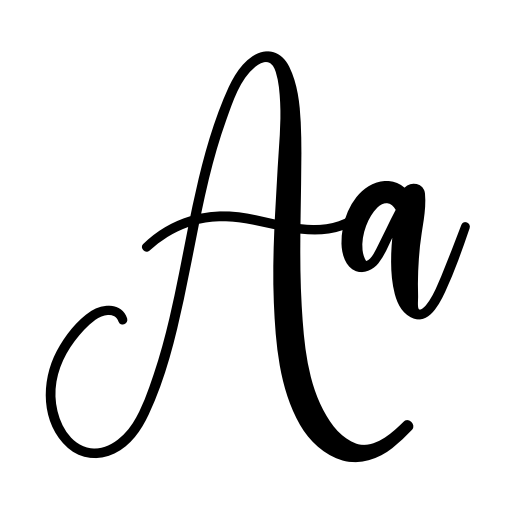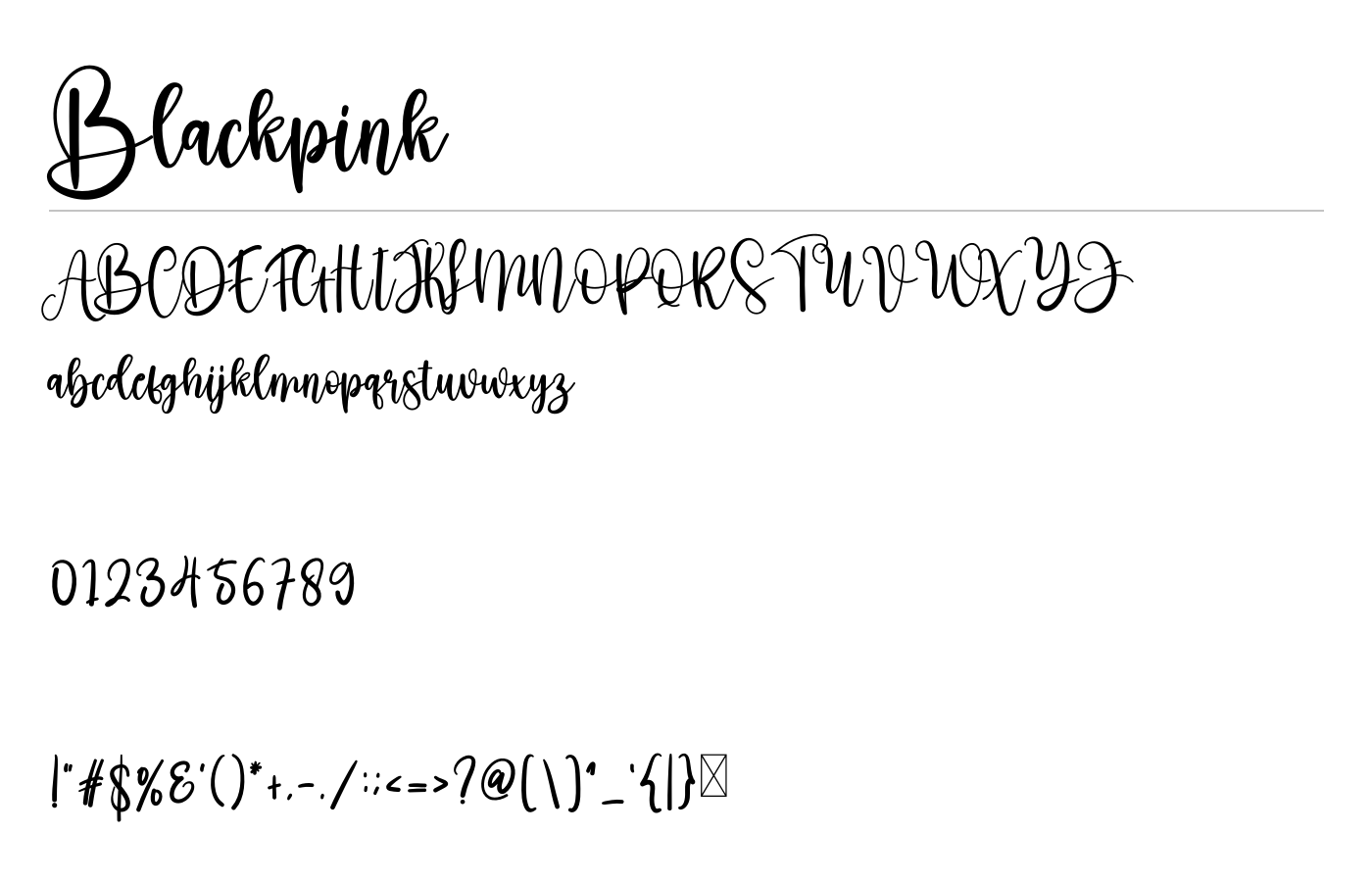
Blackpink Font is a lively and elegant script typeface with a playful yet sophisticated vibe. Its flowing, hand-drawn letterforms feature smooth, bold strokes combined with delicate, intricate swashes, making it perfect for fashion, beauty, and creative branding projects that want to convey charm and style. Ideal for logos, headlines, and invitations, this font adds a personal, artistic touch while maintaining excellent readability.
Blackpink Font